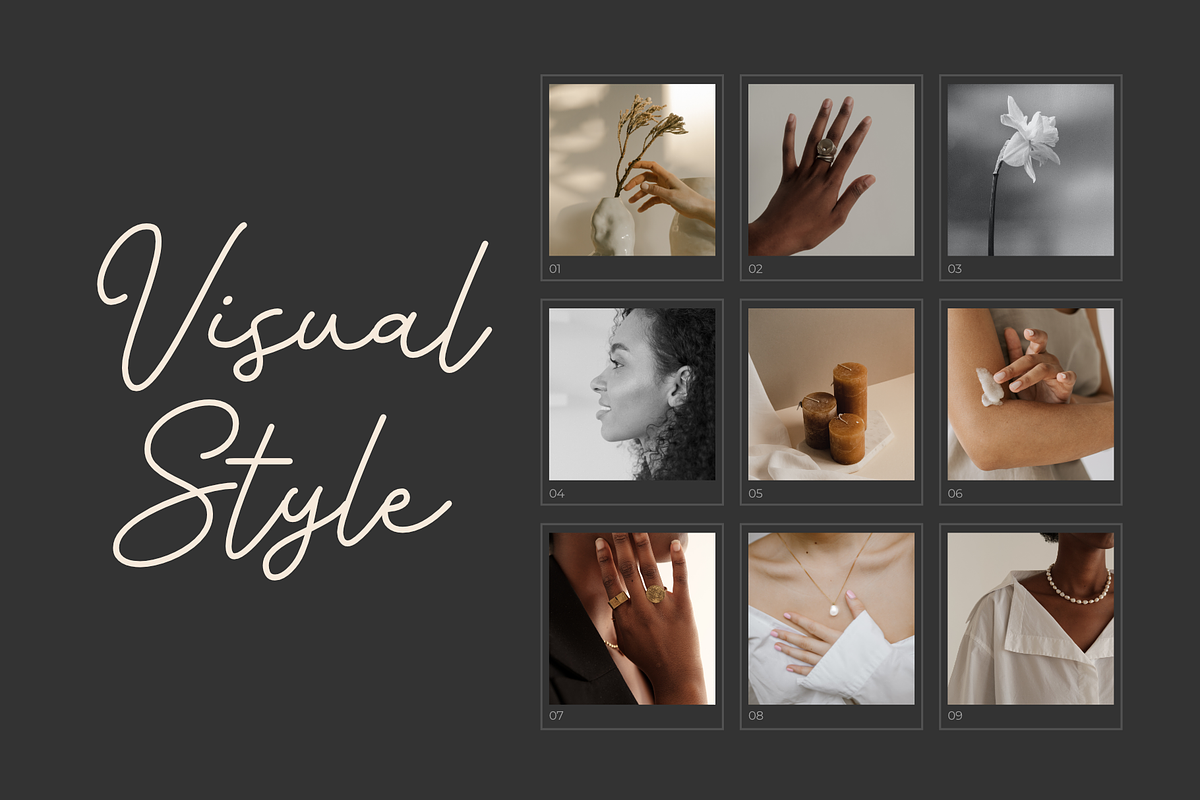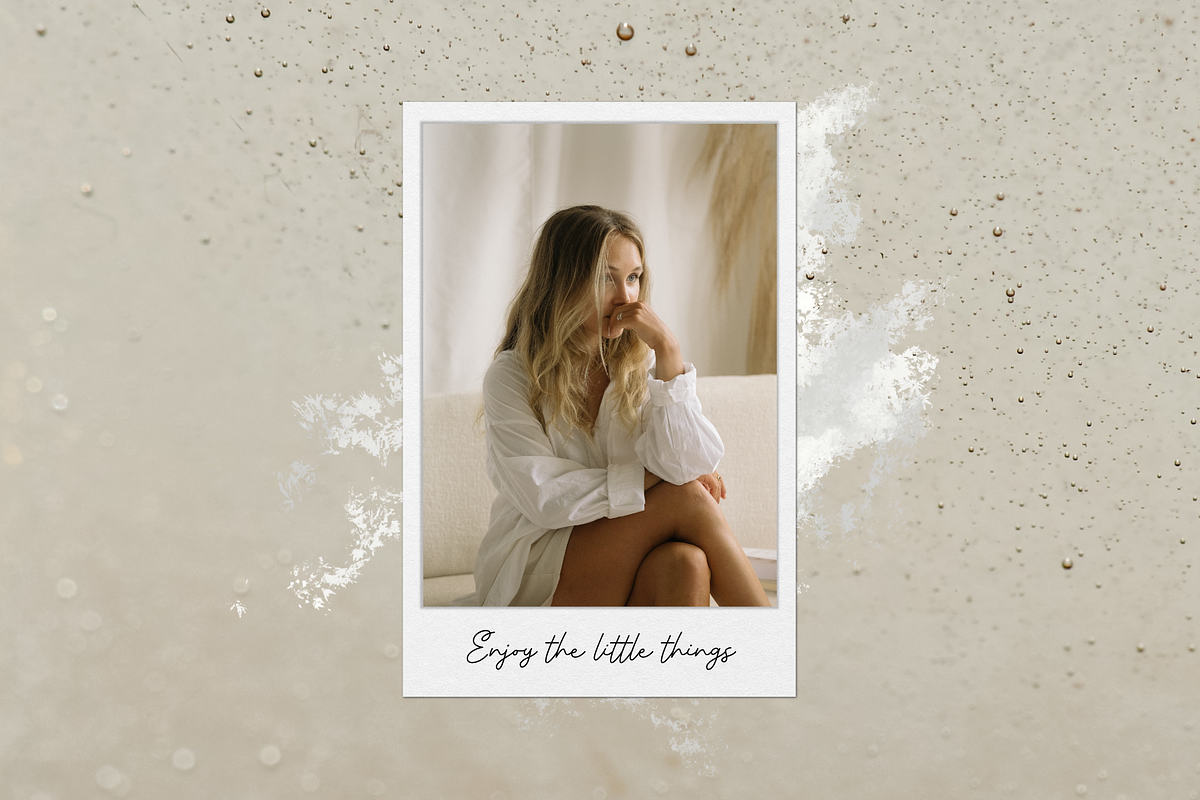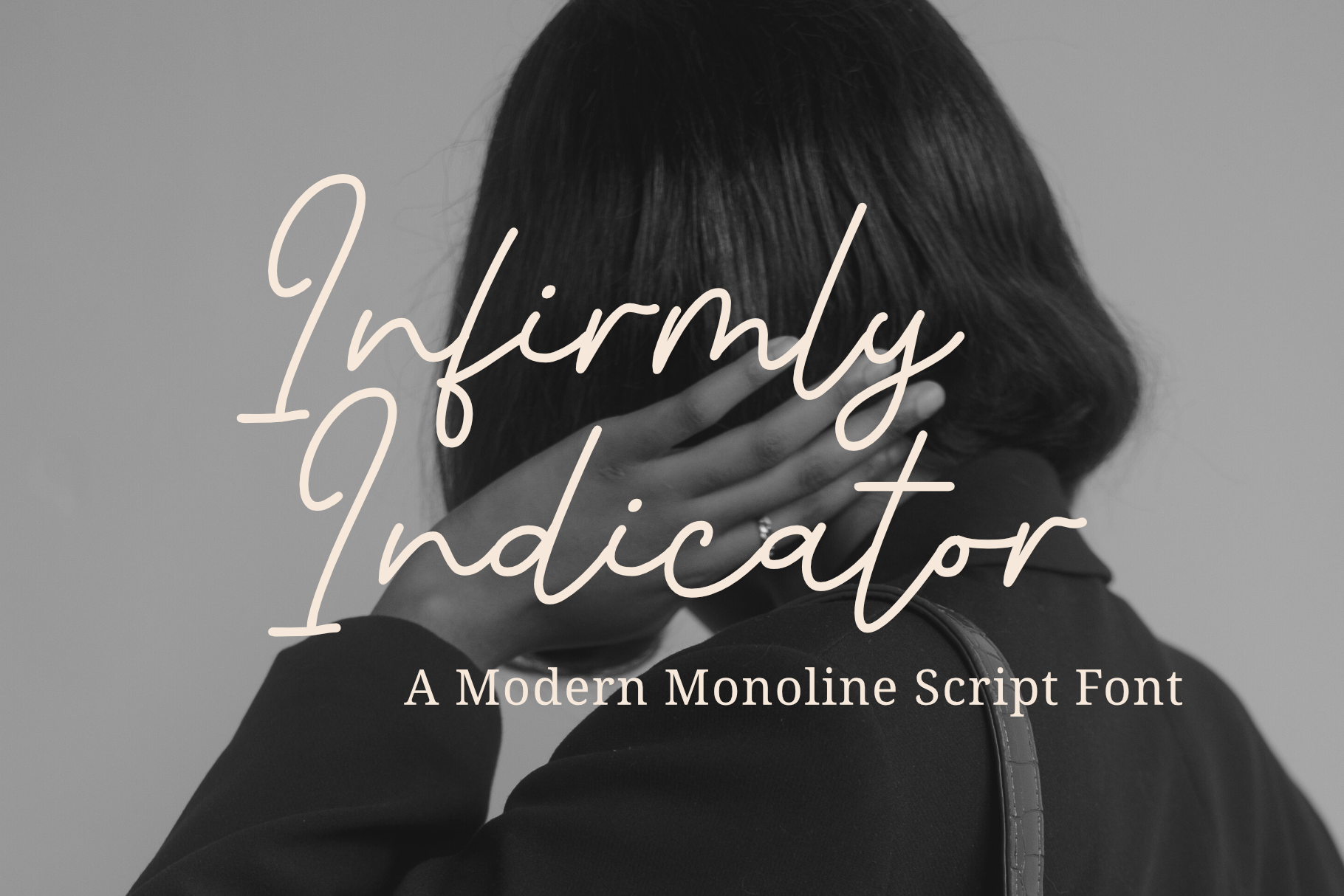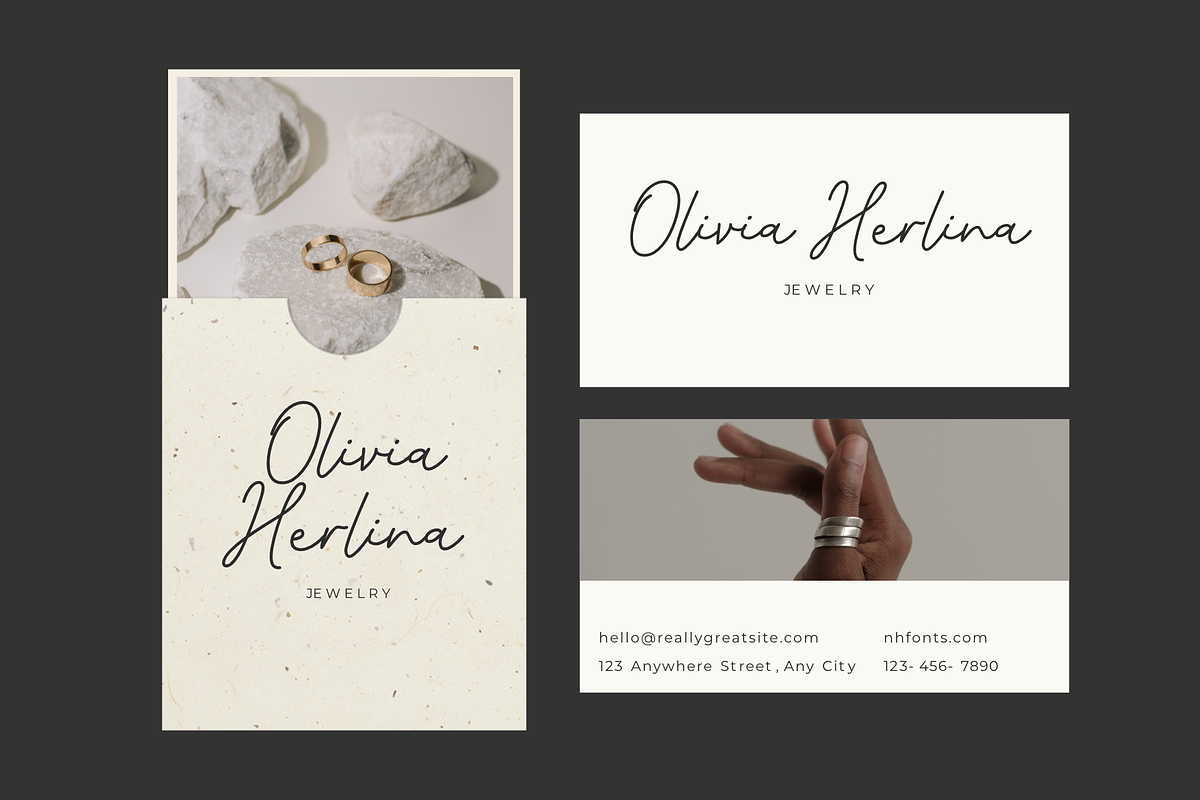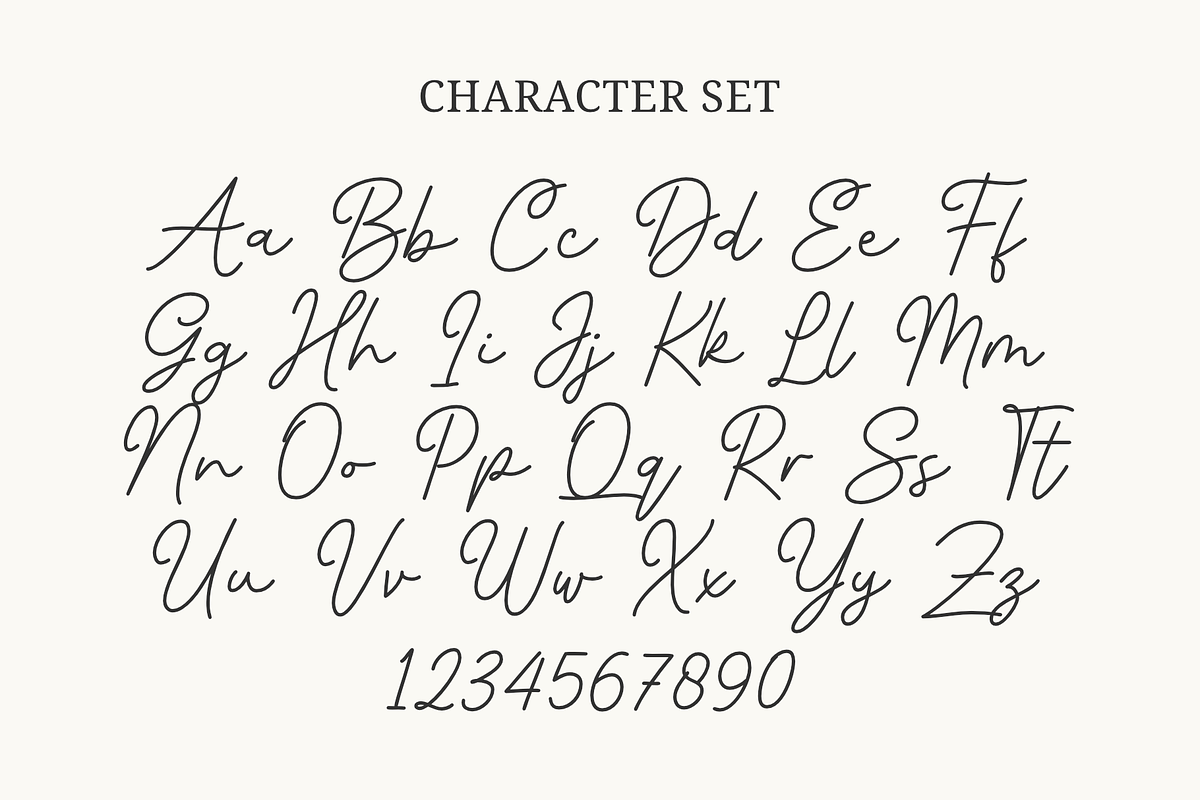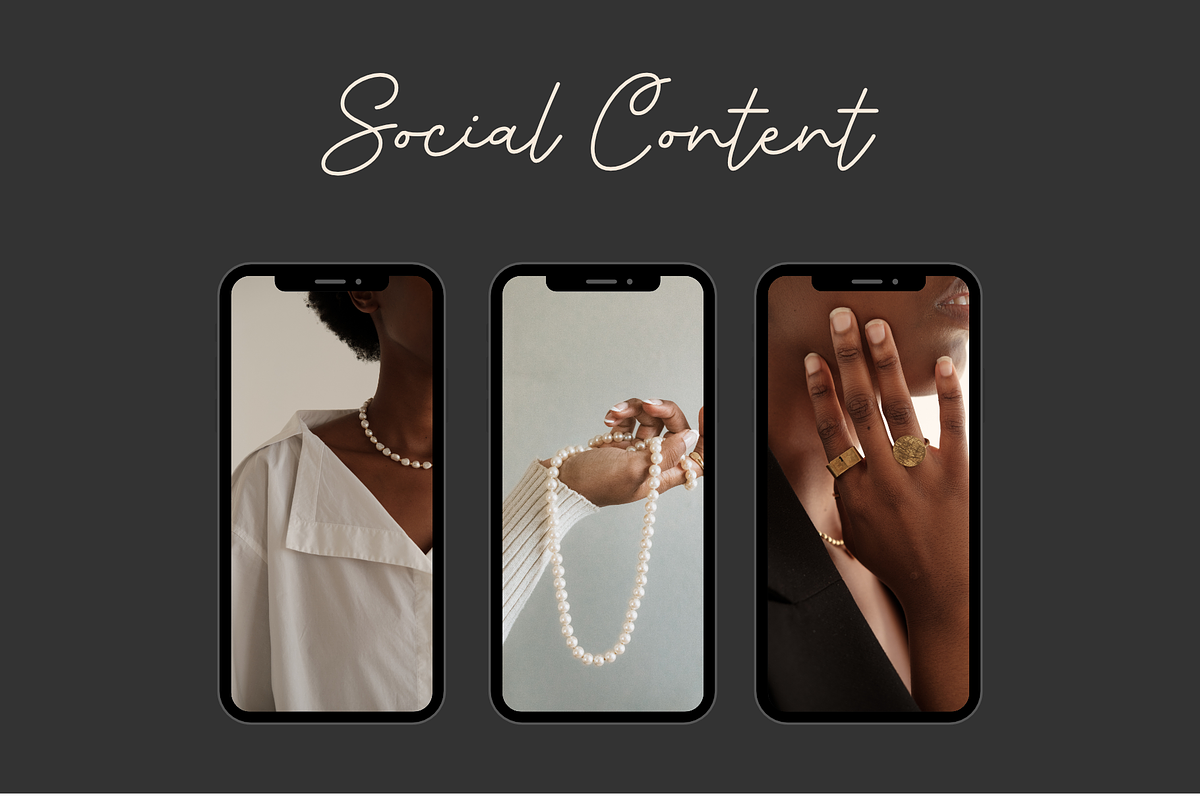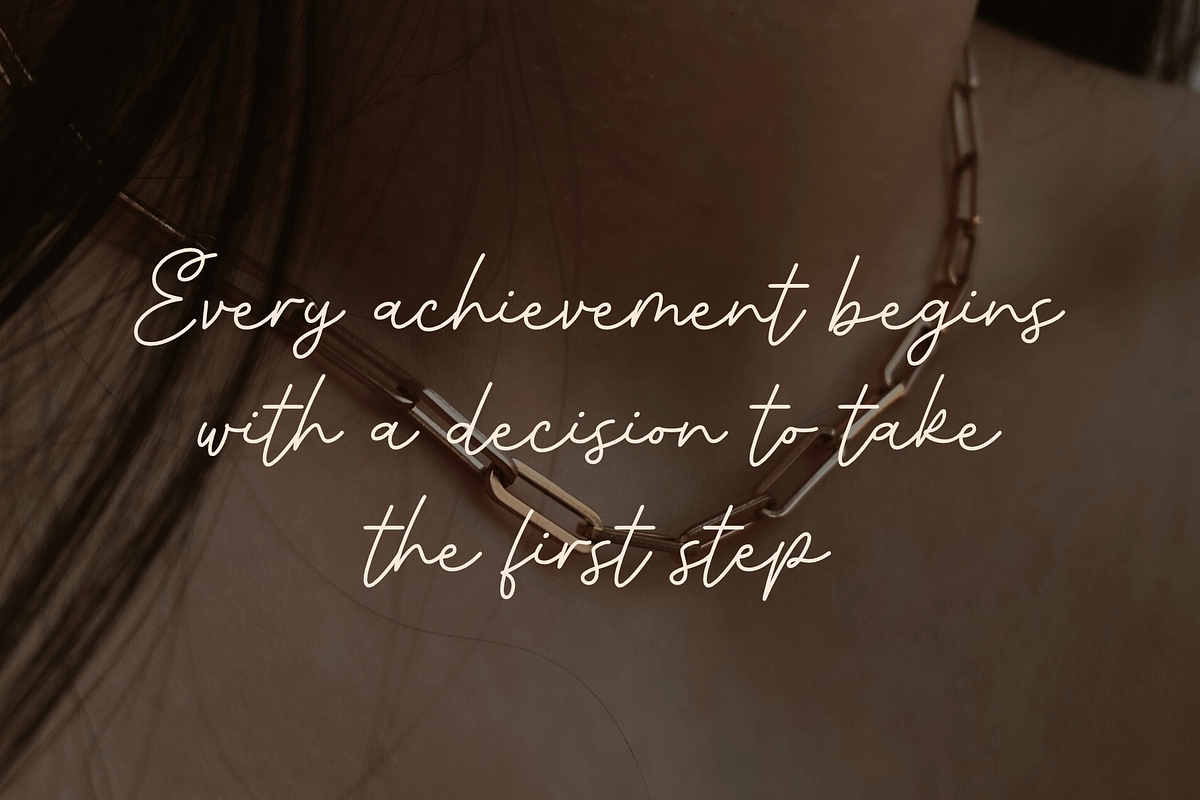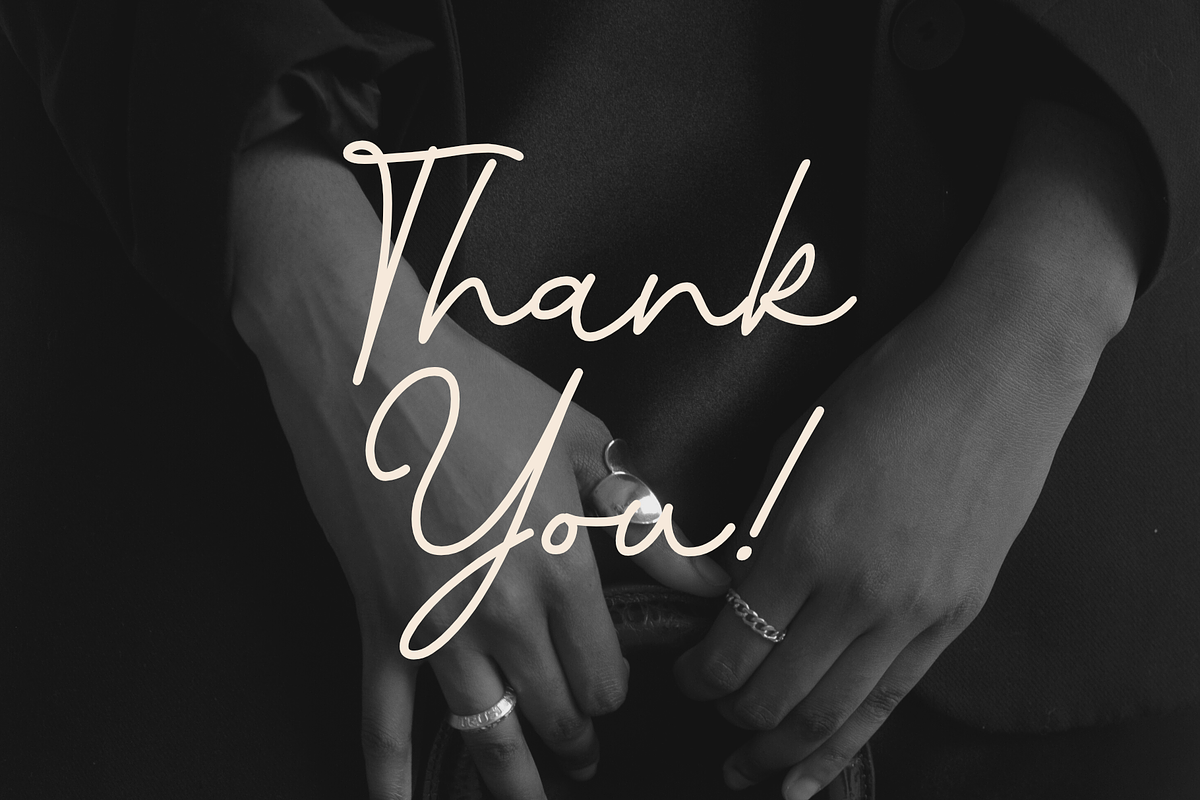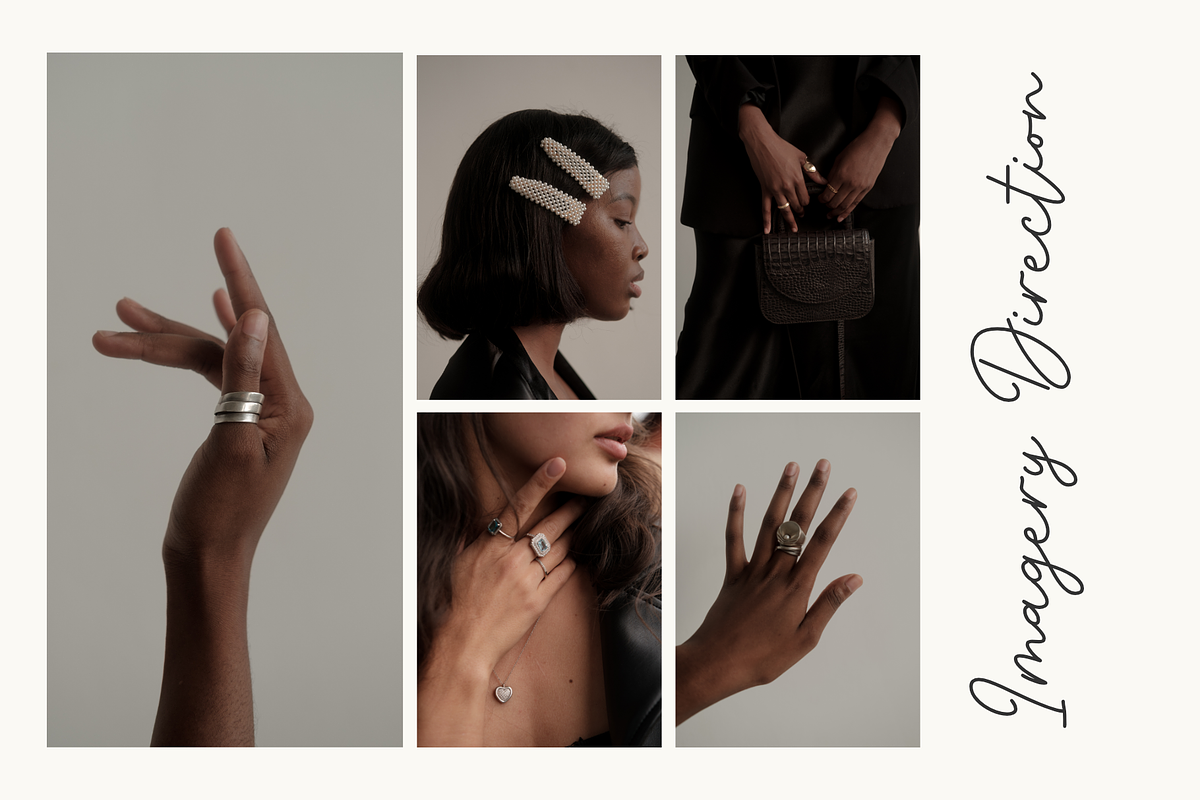
Infirmly Indicator - a Monoline Font
Infirmly Indicator is a modern and simple handwritten script with an classy touch, this font has a unique shape of each character that will add great impression to the design we made.